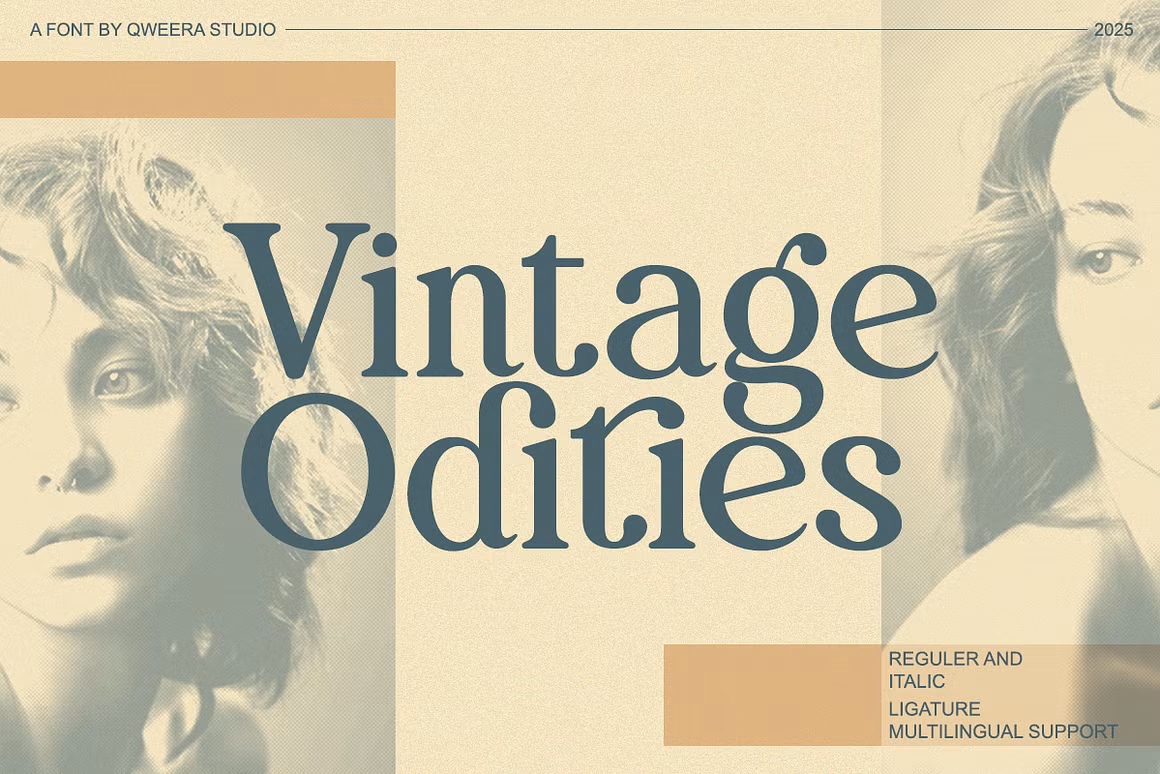
- Style
- Retro, Serif
Vintage Odities by Qweerastudio is a captivating retro serif font that brings a touch of nostalgia to modern design projects. With its elegant curves and refined serifs, this typeface is a tribute to vintage aesthetics, reminiscent of classic signage and print media from the past. Its visual appeal lies in its ability to convey a sense of history and timelessness, making it an ideal choice for projects that aim to evoke emotion and storytelling.
Inspired by the bold yet sophisticated typography of bygone eras, Vintage Odities captures the essence of retro design while offering modern versatility. This font is perfect for use in branding, packaging, and editorial design, where a touch of vintage charm is desired. It features a variety of ligatures and alternates, offering creative flexibility and ensuring that your designs stand out with unique character combinations and personalization options.
Perfect For
– Elegant wedding invitations –
– Stylish brand identities –
– Nostalgic packaging designs –
– Engaging editorial layouts –
Font Features
– Uppercase and lowercase characters –
– Numerous ligatures –
– Alternate glyphs –
– Multilingual support –
Font Pairing Suggestions
Naturalist – Complements Vintage Odities with its organic serif forms.
Belleville – Offers a script contrast that enhances vintage-inspired projects.
Helvetica – Provides a clean, modern counterbalance to the retro style.
Font Style: Retro Serif